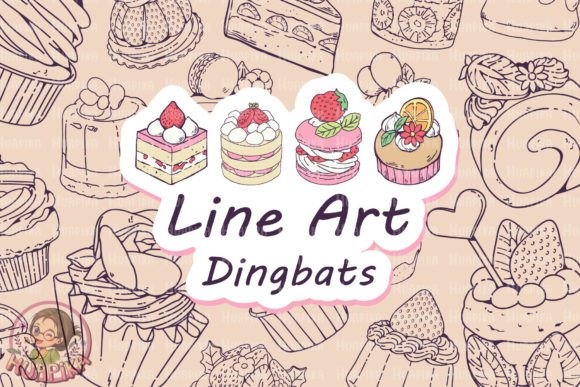
Cake Line Art Font: The Sweetest Addition to Your Design Collection
In the world of design, fonts play a crucial role in conveying the message and aesthetic of a brand or artwork. When it comes to creating visually appealing and thematic designs, a unique and relevant font can make all the difference. This is where the Cake Line Art Font comes into play – a delightful desserts dingbats font that is sure to satisfy your design cravings. In this article, we’ll dive into the world of Cake Line Art, exploring its features, uses, and benefits, as well as provide tips on how to make the most of this sweet font.
What is Cake Line Art Font?
Cake Line Art is a desserts dingbats font that features an assortment of scrumptious cake and dessert illustrations. This font is meticulously crafted to provide a wide range of sweet treats, from cakes and cupcakes to ice cream and donuts. Each character in the font is designed to be intricately detailed, yet effortlessly readable, making it perfect for a variety of design applications.
Endless Design Possibilities with Cake Line Art
Cake Line Art Font is an incredibly versatile font that can be used in a multitude of design projects. Here are some ideas to get you started:
- Logos: Create a memorable logo for your bakery, dessert shop, or food-related business with Cake Line Art.
- Wall Art: Design beautiful wall art, posters, or prints featuring Cake Line Art illustrations.
- Signs: Use Cake Line Art to create eye-catching signs for your business or events.
- Cards: Add a personal touch to your greeting cards, invitations, or thank-you cards with Cake Line Art illustrations.
- Art Prints: Create stunning art prints, featuring Cake Line Art designs, to adorn your walls or give as gifts.
- T-Shirts: Design custom t-shirts, hoodies, or aprons with Cake Line Art illustrations.
- Coloring Pages: Create engaging coloring pages for kids or adults featuring Cake Line Art designs.
Why Choose Cake Line Art Font?
So, what sets Cake Line Art Font apart from other fonts? Here are some benefits of using Cake Line Art:
- Unique and Quirky: Cake Line Art Font adds a touch of whimsy and fun to your designs.
- Highly Versatile: Use Cake Line Art Font in a wide range of design projects, from logos to wall art.
- Easily Readable: Despite its intricate details, Cake Line Art Font is surprisingly readable, even at small sizes.
- Scalable: Cake Line Art Font can be scaled up or down without losing its quality or charm.
Tips for Making the Most of Cake Line Art Font
To get the most out of Cake Line Art Font, here are some tips to keep in mind:
- Experiment with Colors: Play around with different color schemes to find the perfect combination for your design.
- Mix and Match: Combine Cake Line Art illustrations with other fonts or graphics to create a unique design.
- Pay Attention to Size: Make sure to adjust the size of your Cake Line Art illustrations to fit your design needs.
- Use it Sparingly: Don’t overdo it – use Cake Line Art Font sparingly to avoid overwhelming your design.
In conclusion, Cake Line Art Font is a delightful desserts dingbats font that is sure to add a touch of sweetness to your designs. With its unique and quirky illustrations, high versatility, and ease of use, Cake Line Art Font is perfect for a wide range of design projects. Whether you’re a designer, artist, or simply a crafty DIY enthusiast, Cake Line Art Font is sure to become a favorite in your collection.